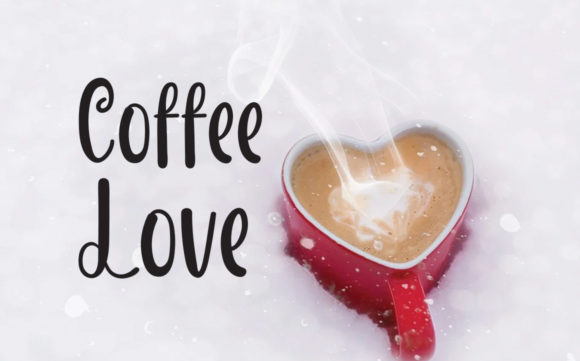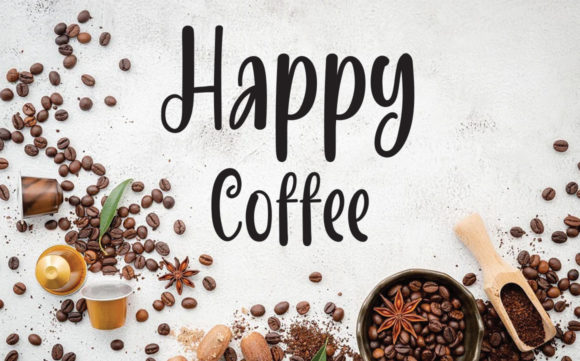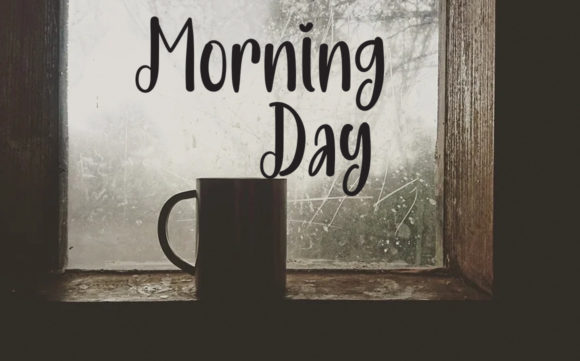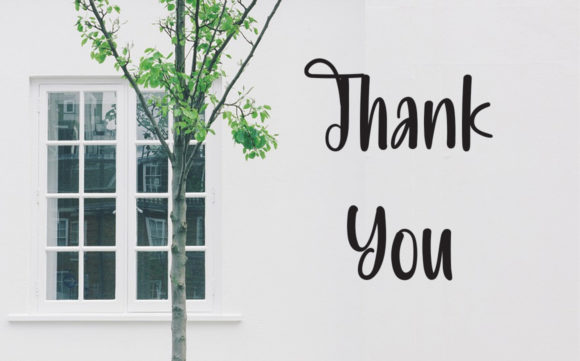
Hello MorningAC Font
“Hello Morning” presents itself as a captivating and flowing handwritten font, offering a blend of beauty and functionality that makes it suitable for a wide range of design applications. Whether it’s for wall displays, wedding invitations, or social media branding, this font delivers impressive typography that leaves a lasting impression.
One of the defining characteristics of “Hello Morning” is its elegant and flowing style, which lends a sense of grace and sophistication to any project it graces. From advertisements to product packaging and beyond, this font adds a touch of beauty and charm that elevates the overall aesthetic.
For wedding invitations, “Hello Morning” offers a romantic and timeless option that sets the perfect tone for the big day. Its flowing lines and graceful curves create a sense of warmth and intimacy, making it ideal for capturing the love and joy of such a special occasion.
In the realm of social media branding, “Hello Morning” stands out as a versatile and eye-catching option for logos and graphics. Its flowing script adds a touch of personality and flair to social media posts, helping brands establish a distinctive and memorable presence online.
When it comes to product packaging and design, “Hello Morning” offers a blend of elegance and functionality that makes it well-suited for a variety of applications. Whether used for labels, photography watermarks, or product designs, this font adds a touch of sophistication that enhances the overall appeal of any product.
From invitations to stationery, “Hello Morning” brings a sense of style and sophistication to every project it touches. Its flowing handwritten style creates a sense of intimacy and personalization, making it the perfect choice for creating invitations, greeting cards, and personalized stationery that stand out from the crowd.
Overall, “Hello Morning” is a versatile and beautiful font that adds a touch of elegance to any design project. Whether used for wall displays, social media branding, or product packaging, this font offers impressive typography that leaves a lasting impression.